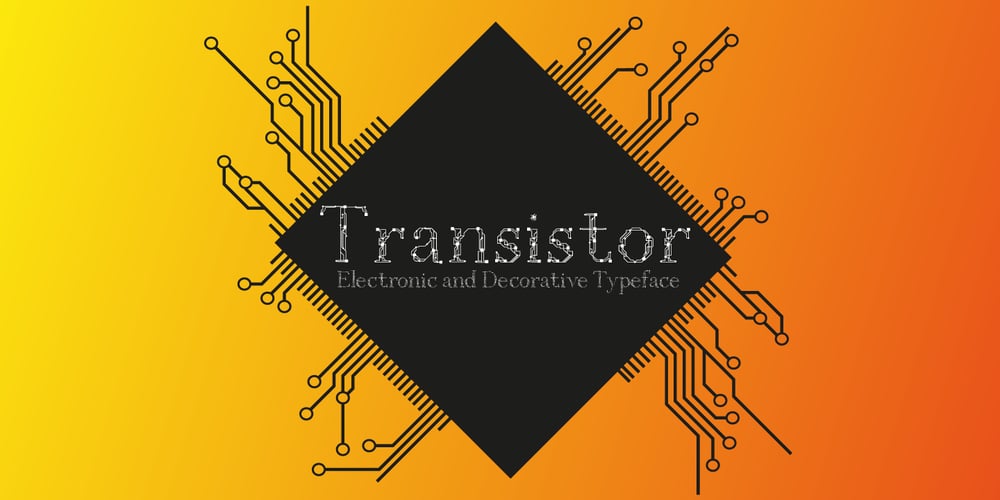
Transistor Font Family was designed by Nuno Miranda and published by Miratype. Transistor contains 1 styles and family package options. Transistor is a decorative and electronic serif typeface. One of the historical connection was the Didot, development in French. Transistor typeface was designed from the concept and experimentation with electronic circuits. The main typographic proportion are connected with the modern typeface, like Didot where the letterforms are inspired from the point nib pen design approach but also with electronic type style letterforms.